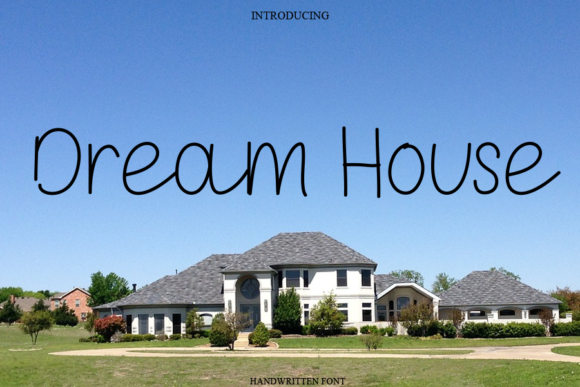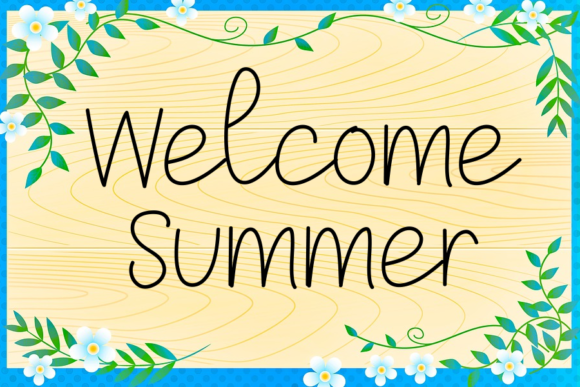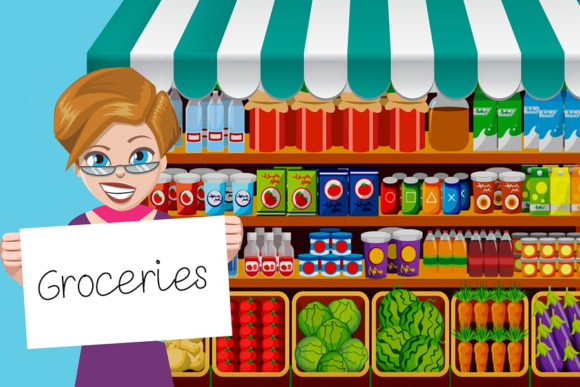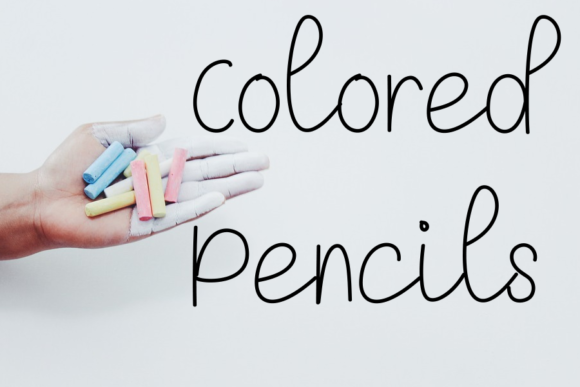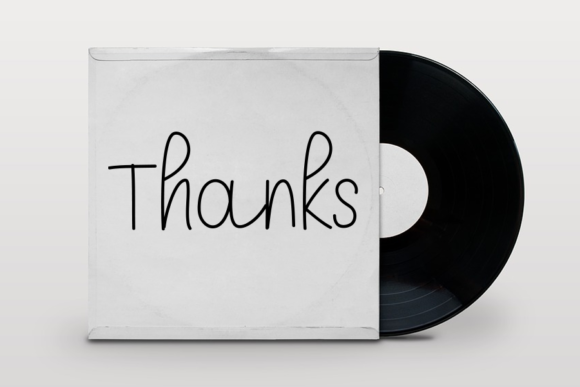
Dream House Font
About Dream House Font
Dream House is a dainty and unique script font. Add this romantic and lovely looking font to each of your love letters, wedding invitations or favorite design ideas, and you will be astounded by the outcome.